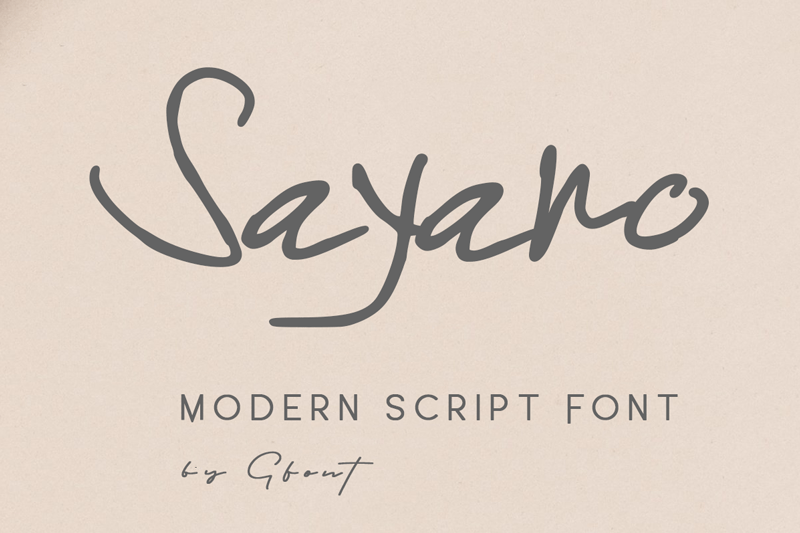
Note of the authorIntroducing a new beautiful script font, Sayano Handwritten Font! A font that you were meant to find, and is now destined to be with you :)
Made for the creative spirits out there, perfect for those who love to create whimsical collages, e-newsletters, web banners and quotes to skyrocket on social media, especially Pinterest! Youll have all the decorative pieces you need to create something wonderful.